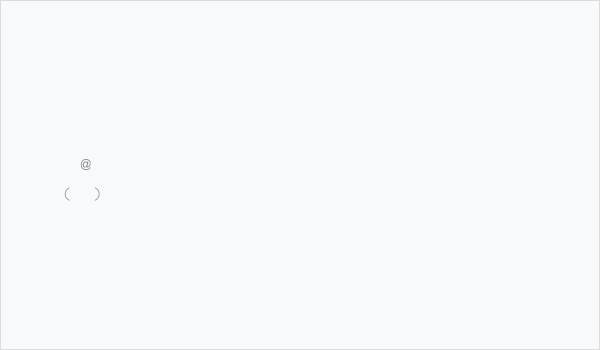
DEINI Font
DEINI Description
This font features a unique and artistic design, characterized by its circular and symmetrical elements. The letters are formed by a series of curves and lines that create a sense of balance and harmony. The overall appearance is modern and abstract, making it stand out in any design project. The font's style is both minimalistic and expressive, offering a fresh take on traditional letterforms. Its distinctive look makes it suitable for creative and innovative applications, where a bold statement is desired.
| Overall Style | Modern, Abstract |
| Use Case | Logos, Creative design projects |
| Proposed Projects | Ideal for branding, logos, modern art projects, and innovative design applications. |